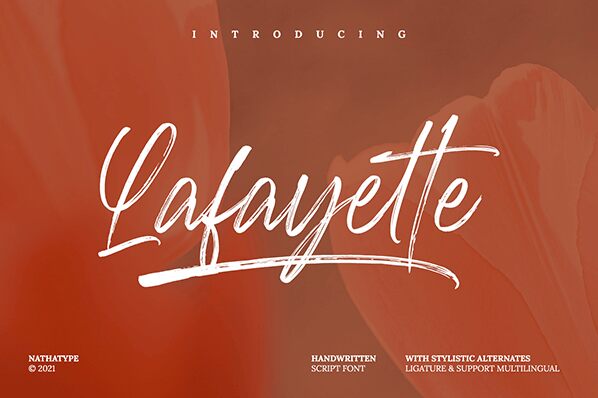
Lafayette font by Din Studio is a handwritten typeface with a subtle brush style, offering a modern, attractive feel. This light and captivating font adds the right amount of beauty and style to your designs, making it perfect for creating visually appealing projects.
Experience its artistic flair in titles, poster designs, branding, quotes, logos, invitations, social media content, book covers, packaging design, website headers, greeting cards or blog graphics. Let this free handwritten font enhance your creative work.